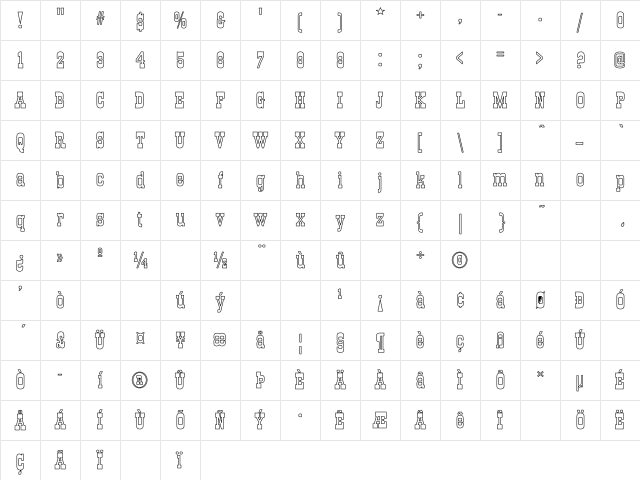
Complete Old-TownExt-Normal Hollow Regular glyph index. Displaying only characters natively supported by Old-TownExt-Normal Hollow Regular font.
Old-TownExt-Normal Hollow is a composed and adaptable typeface that performs quietly and consistently across a wide range of design contexts.